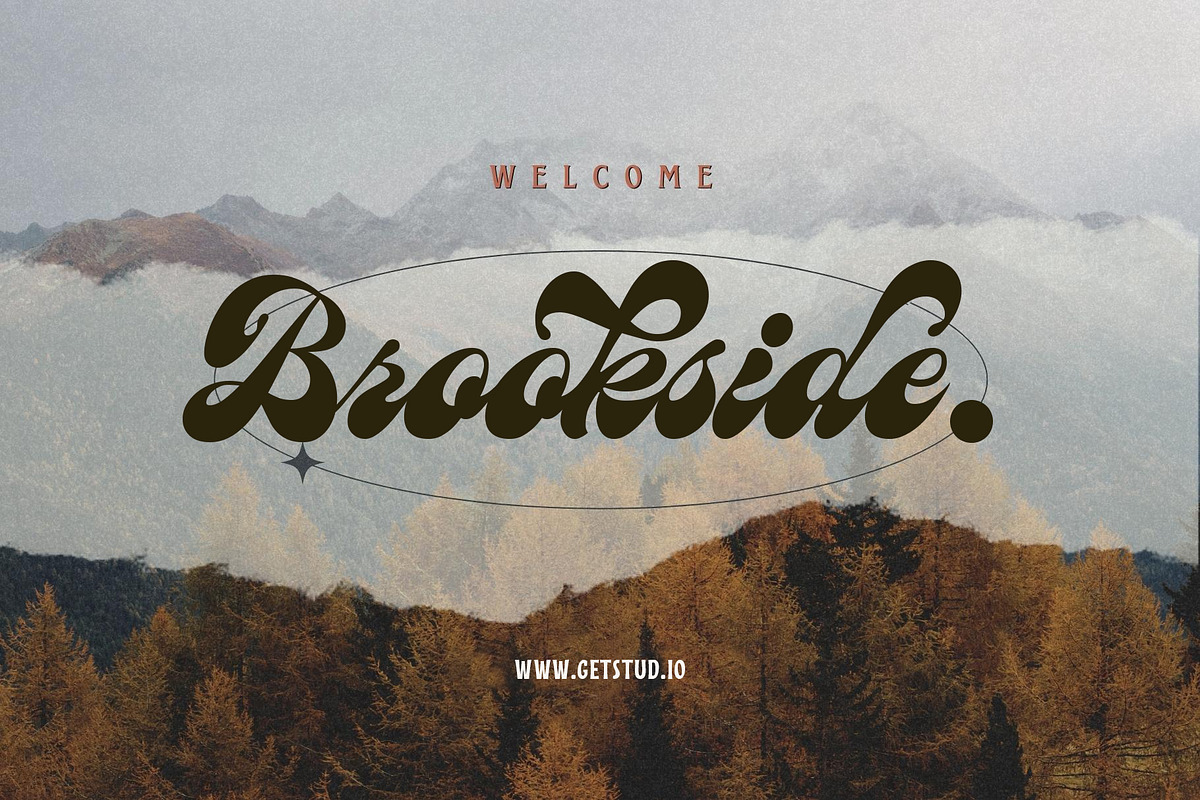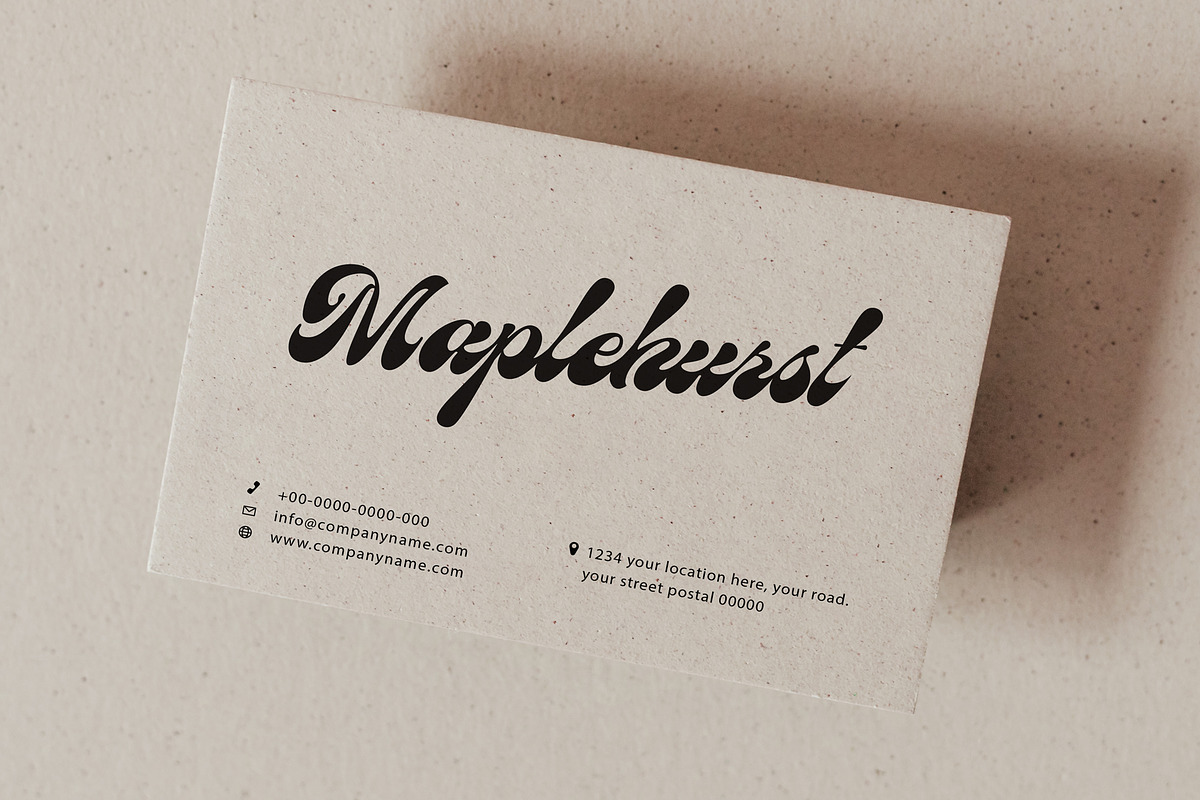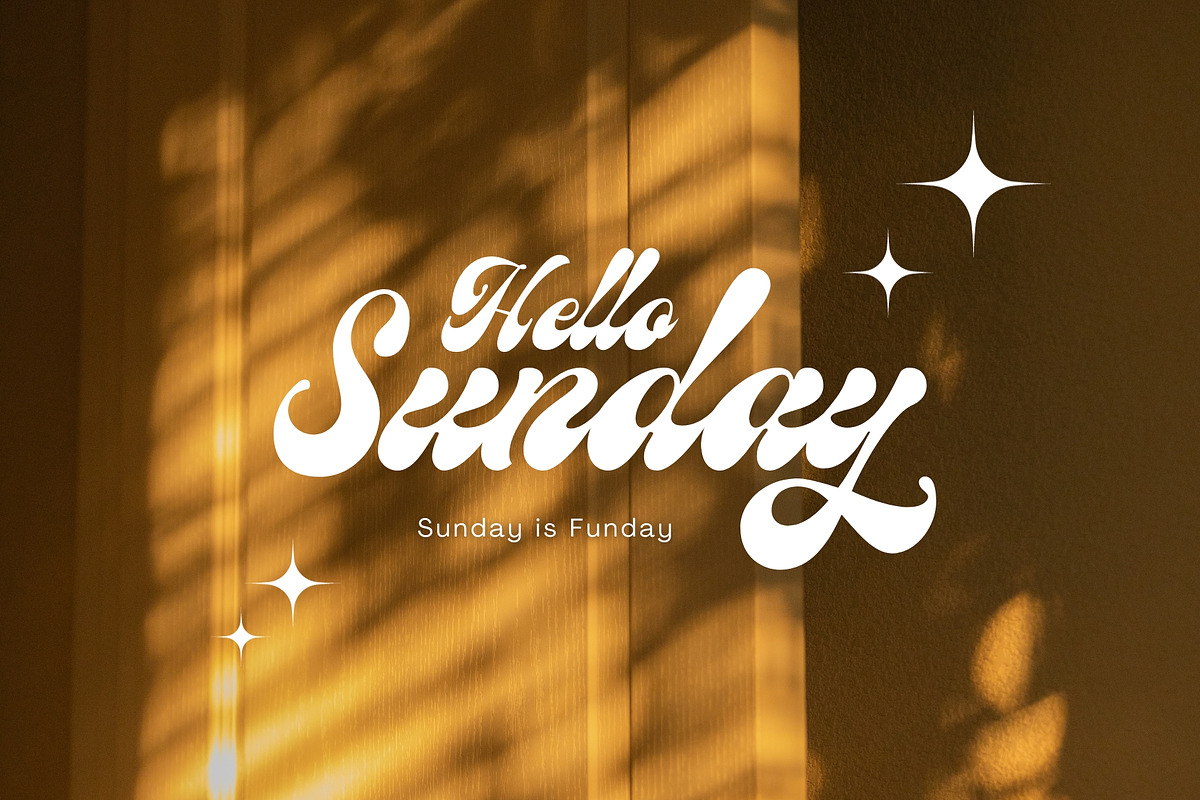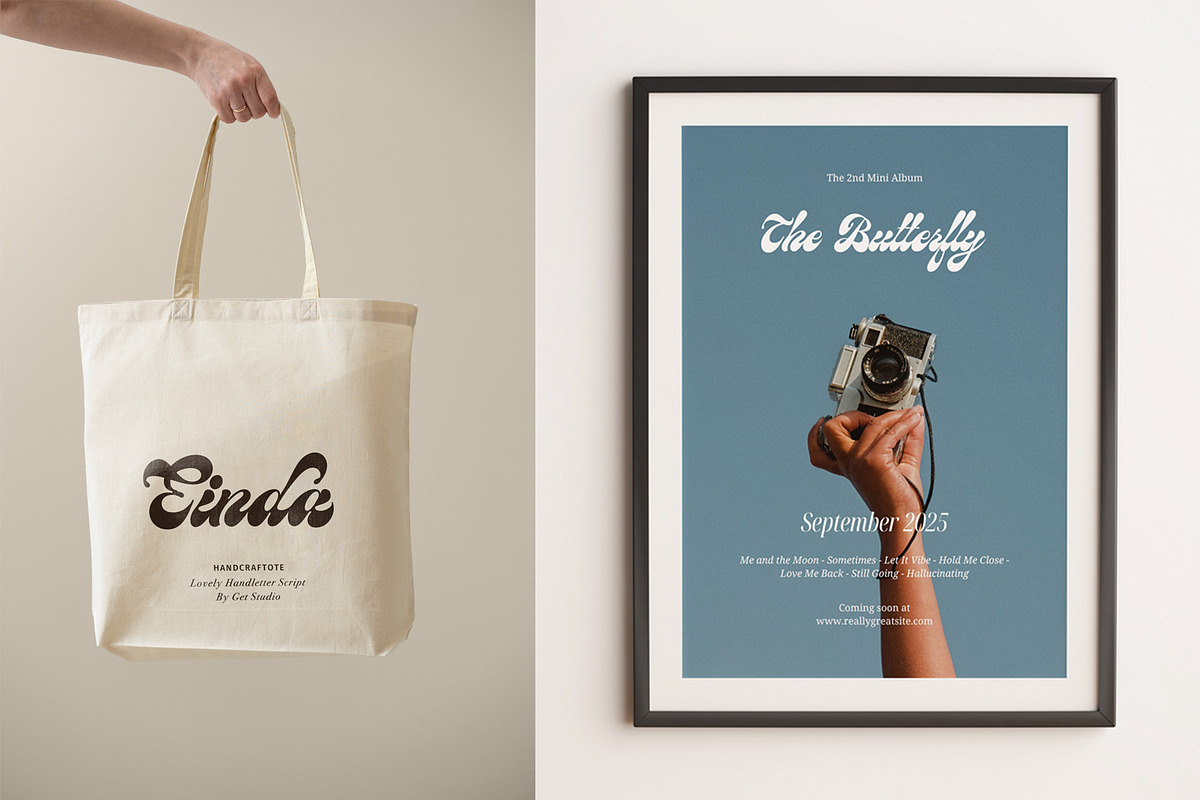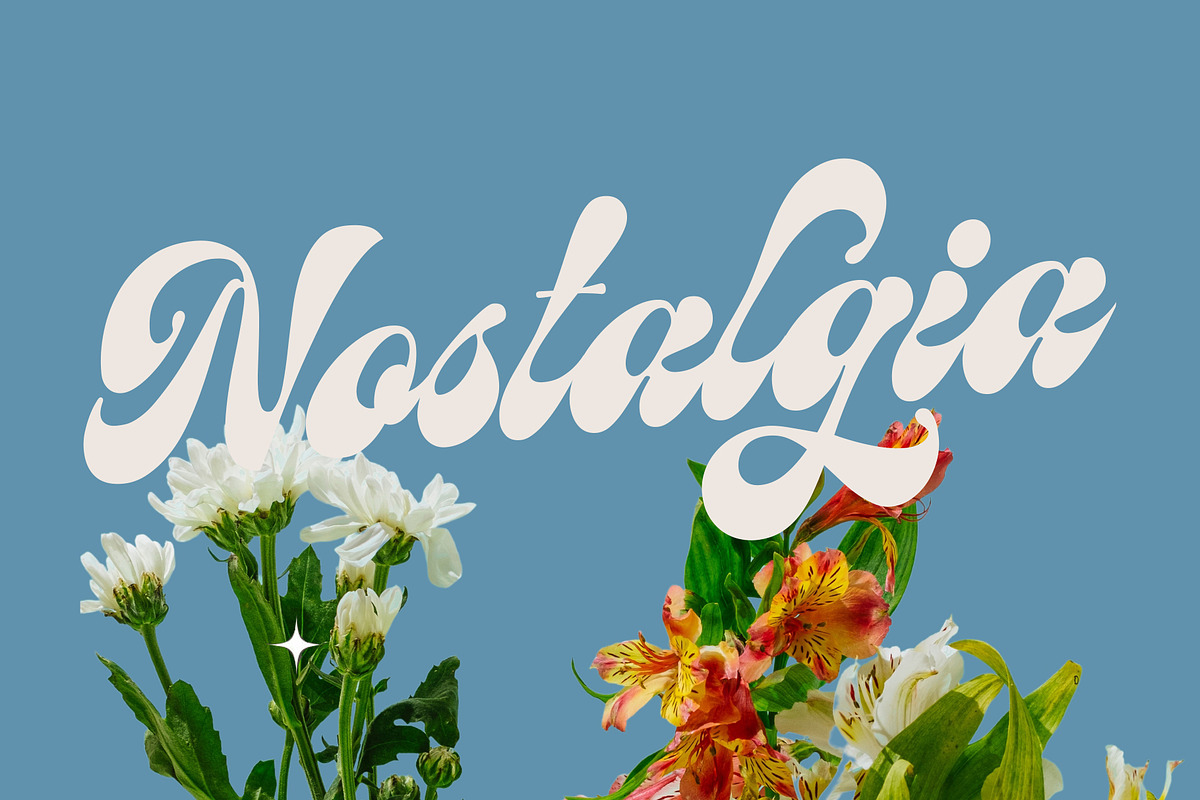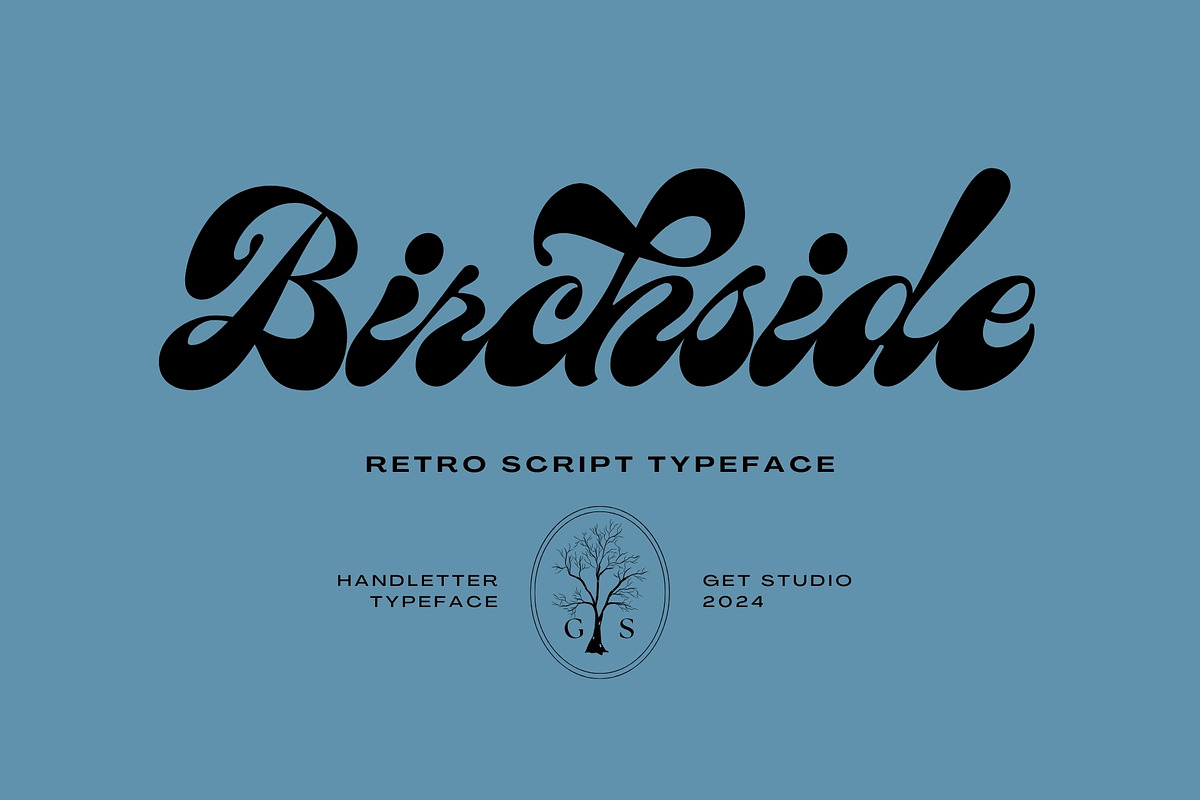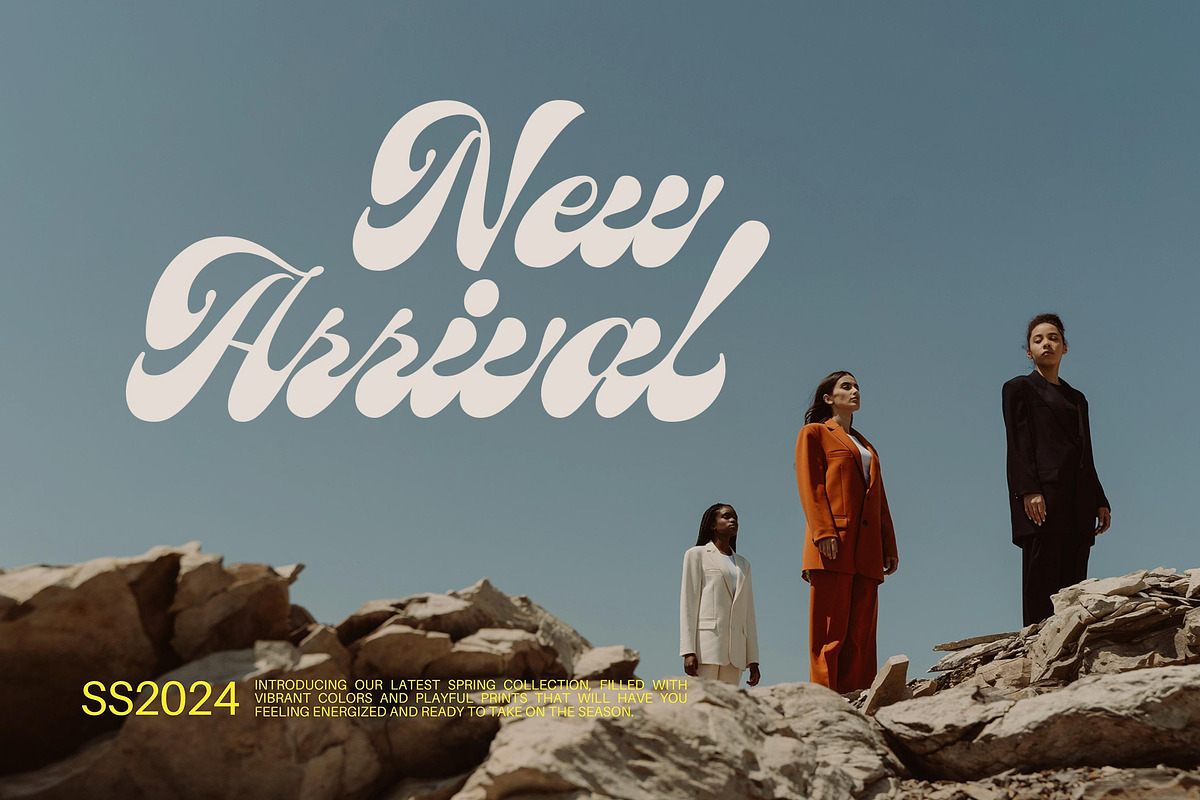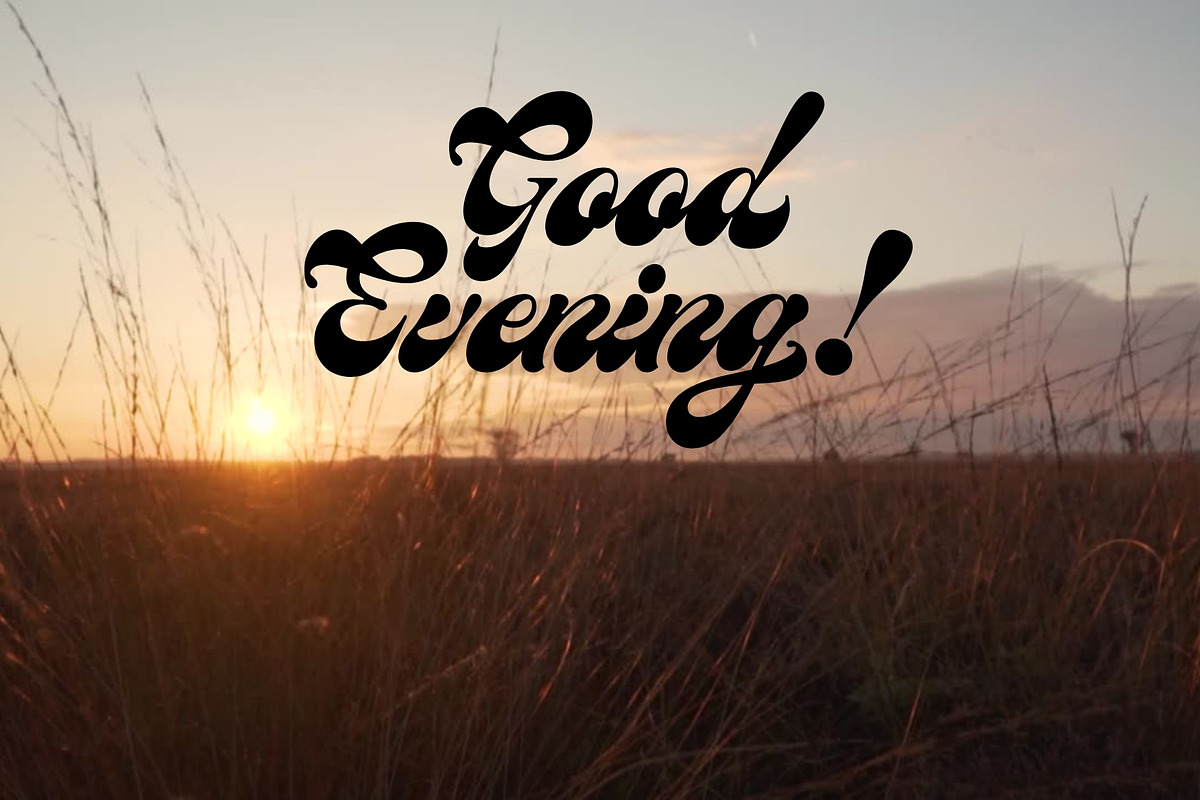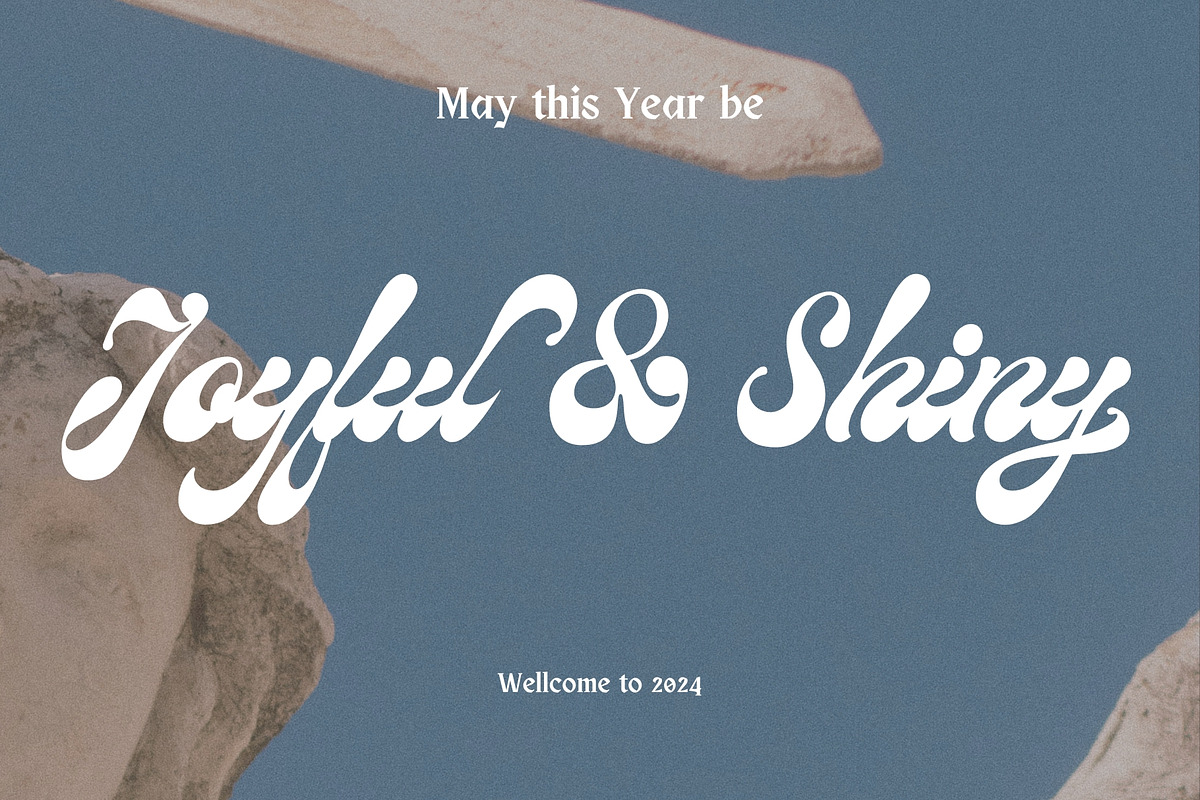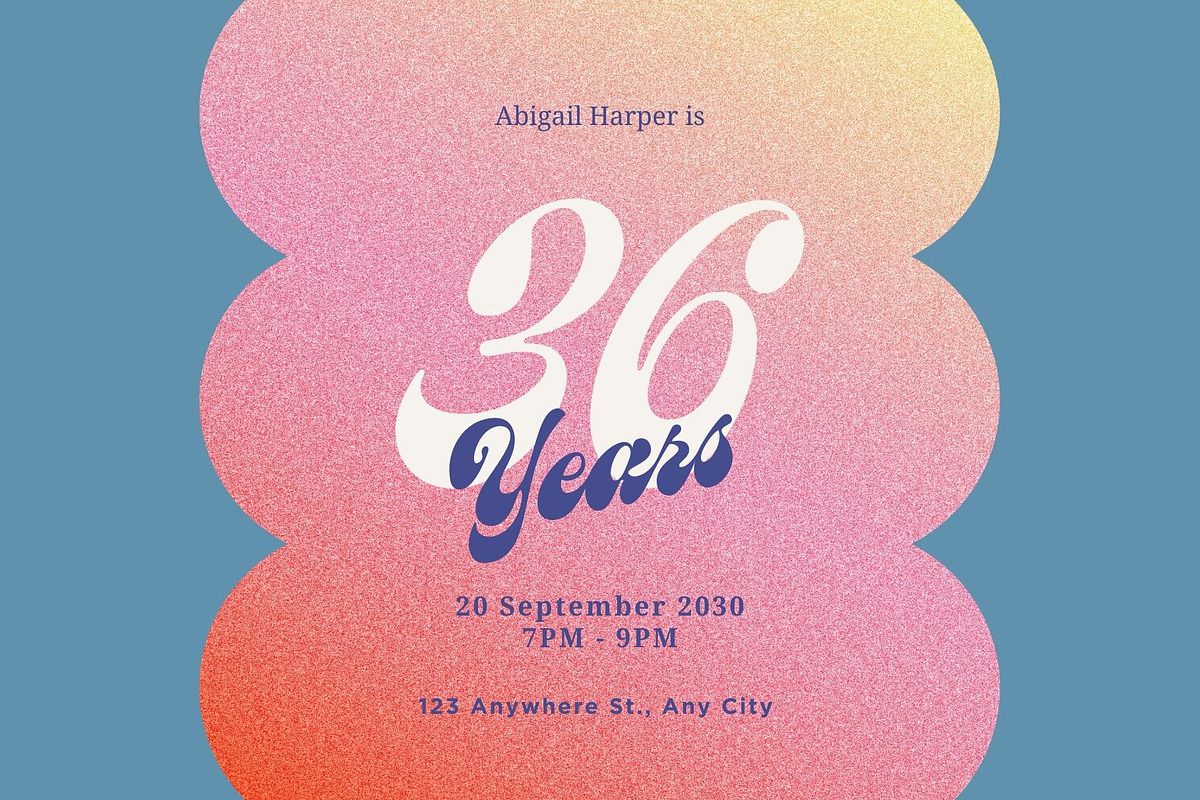
Birchside Script
Introducing Birchside Typeface, our latest display script font, a captivating blend of retro charm and contemporary boldness. This font is designed to make a statement with its distinctive style, capturing the essence of vintage aesthetics while maintaining a modern edge. The bold strokes and unique letterforms create a commanding presence, ensuring your text stands out with flair and confidence.
Infused with Opentype features, this font offers a versatile range of alternate characters, allowing you to customize your text and add a touch of individuality to each design. Whether you're working on branding, posters, invitations, or any creative project, this display script font is a dynamic choice that effortlessly combines nostalgia and innovation. Elevate your typography game with this bold and unique font, making every word a visual masterpiece.